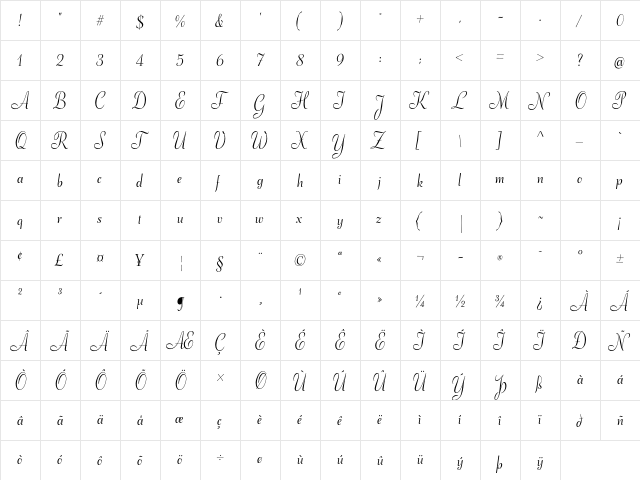
Adana Circular
| Foundry | Andreas Seidel / astype |
| Designer | Wilhelm Berg 1930, Andreas Seidel 2005 |
Design Context for Adana Typeface
Adana is a composed and adaptable typeface that performs quietly and consistently across a wide range of design contexts.